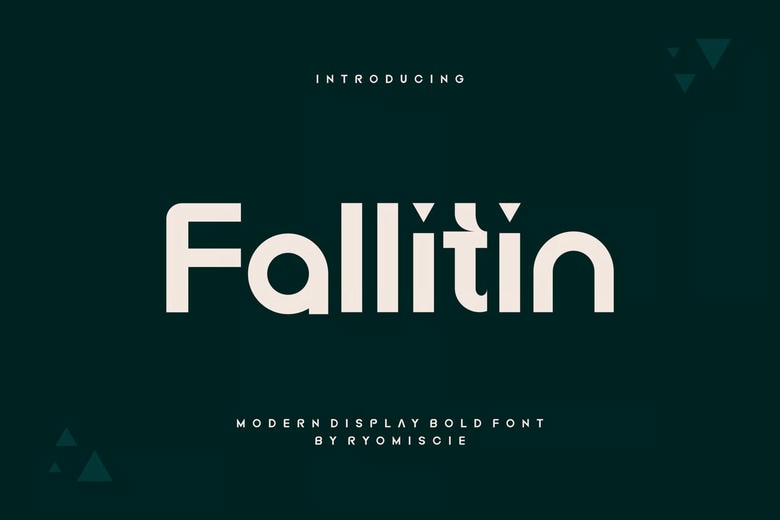
Fallitin Font
Fallitin Font– Modern Font is a bold and authentic display font. The font is suitable for any branding project like logo, esport, and many more. outstanding in a wide range of contexts.
Fallitin Sans Serif Font